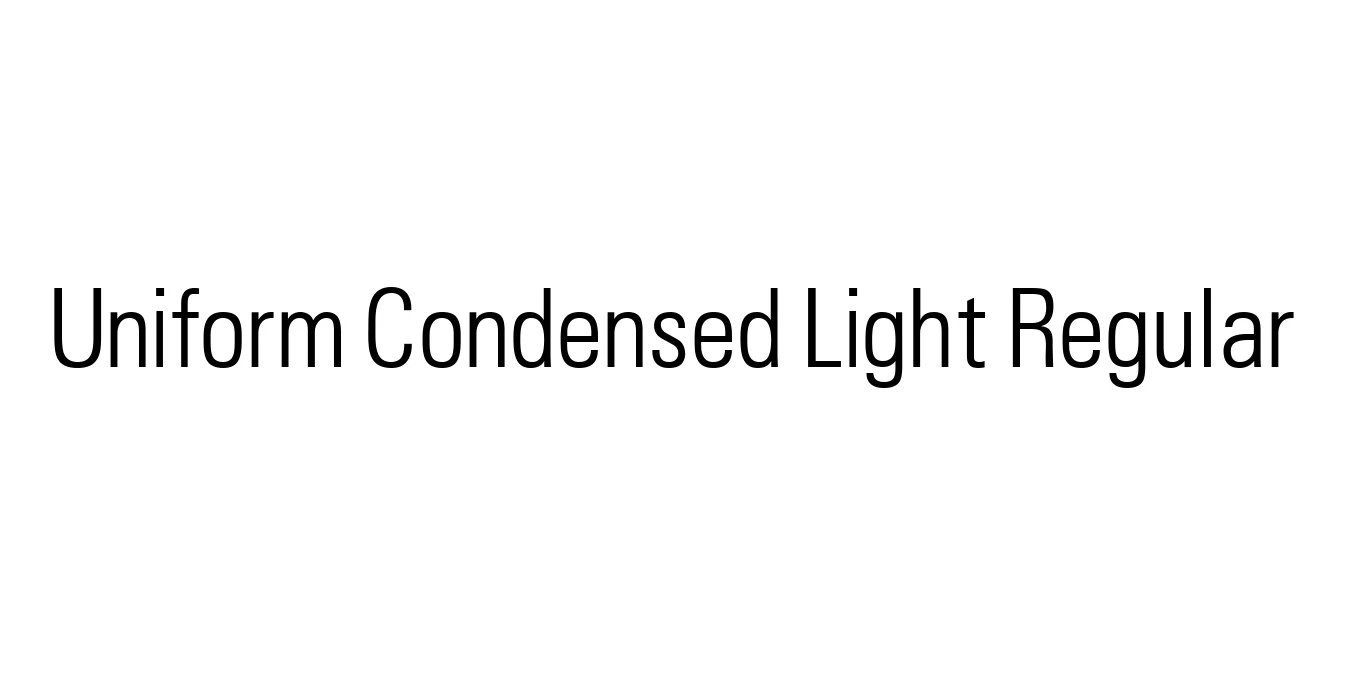
Uniform Condensed Light Regular
Designed by Richard Miller
Uniform Condensed Light Regular is a sophisticated geometric sans-serif typeface designed by Richard Miller of the Miller Type Foundry. The font is built upon the foundation of the circle, aiming to achieve a perfect balance between mathematical precision and visual harmony. By condensing the proportions, Miller created a version that is highly efficient for space-sensitive layouts while retaining the minimalist elegance of the original Uniform family.
The Light Regular weight provides a delicate yet legible stroke, making it particularly effective for high-end editorial work and modern branding. Its narrow architecture allows for more characters per line, which is essential for mobile app interfaces and narrow column settings. The typeface stands out for its clean lines and open counters, ensuring a professional and contemporary look across both digital and print media.
Uniform Condensed Light Regular Best Uses
Perfect for magazines and journals requiring narrow, elegant columns.
Ideal for user interfaces where horizontal screen space is limited.
Excellent for creating clean, modern headlines with a minimalist aesthetic.
Suitable for tech-focused or luxury brands seeking a streamlined identity.